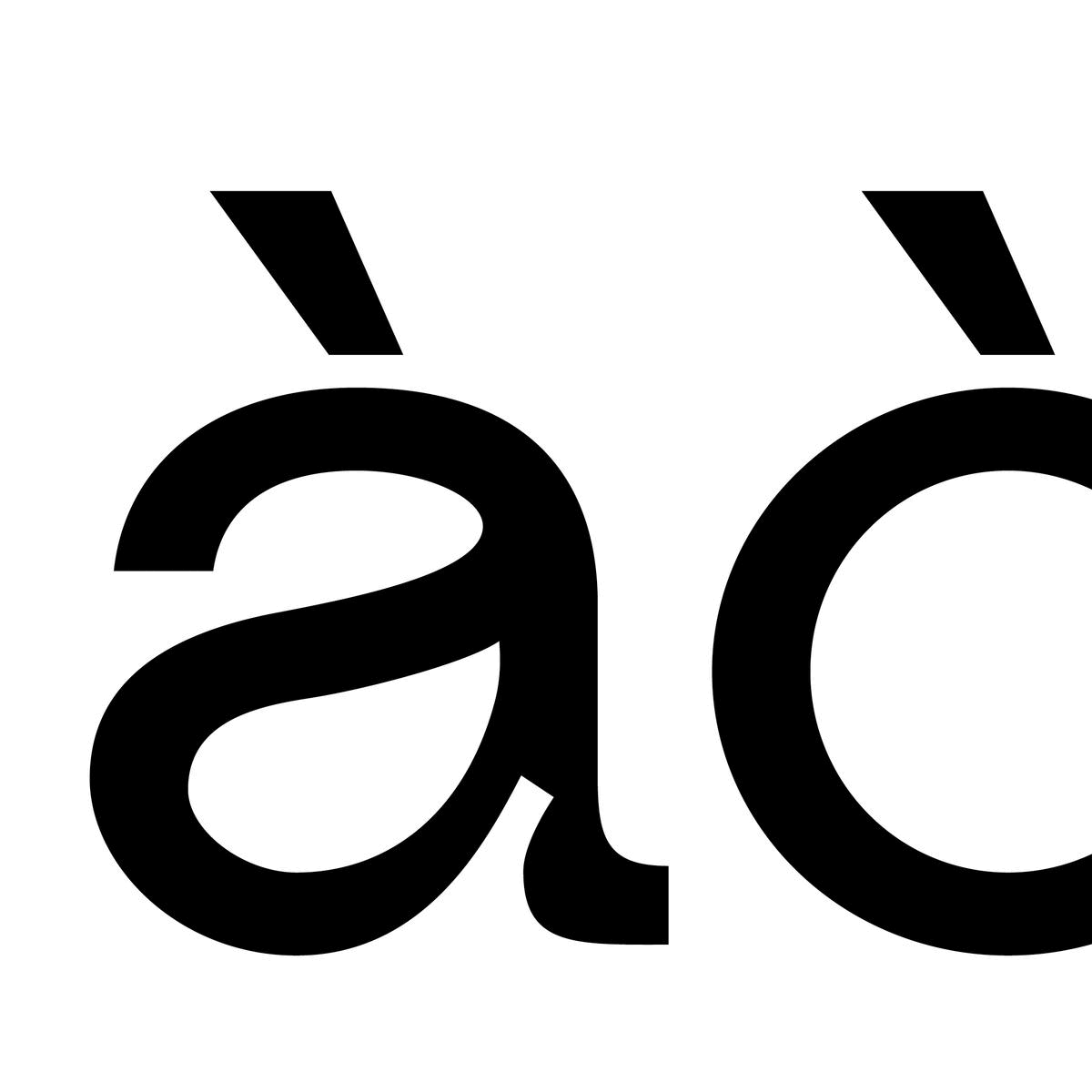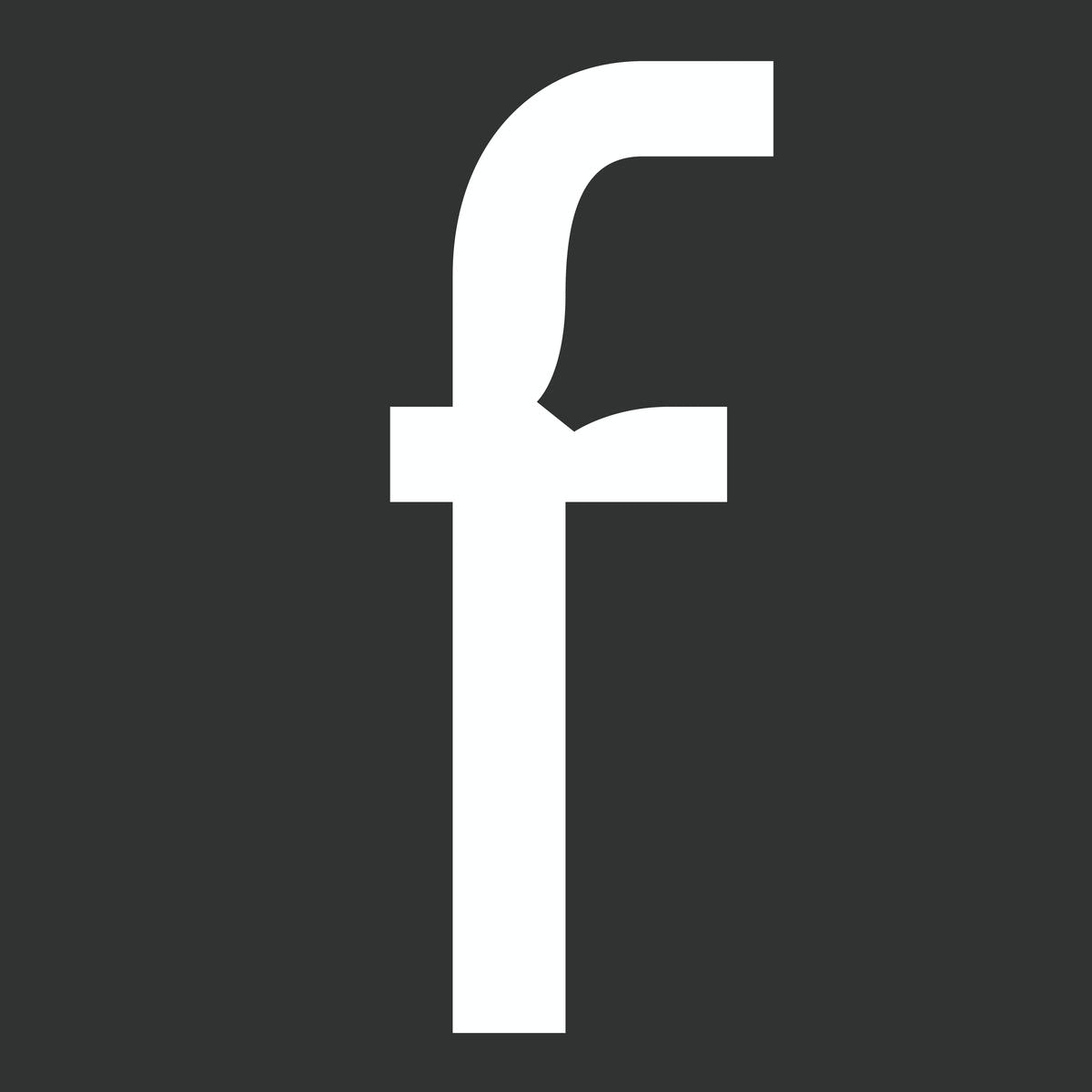
Lunema is a highly stylized contemporary neo-grotesque sans serif typeface with strong geometric contrasts. The font is highly legible in smaller point sizes due to the distinct deep ink traps. All 10 styles have an extended Latin glyph set with alternatives and ligatures.